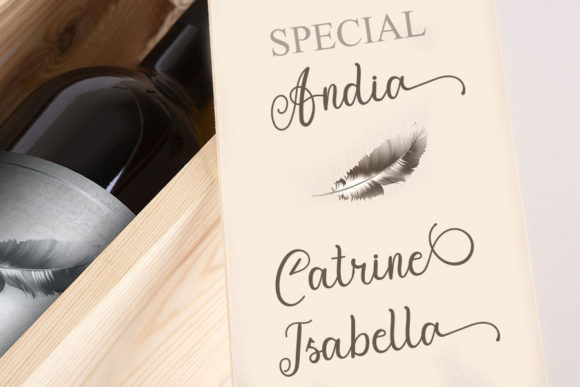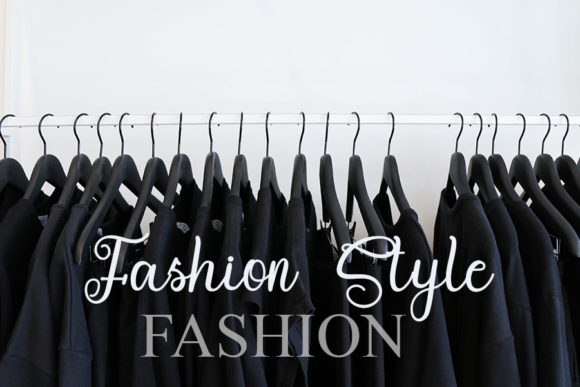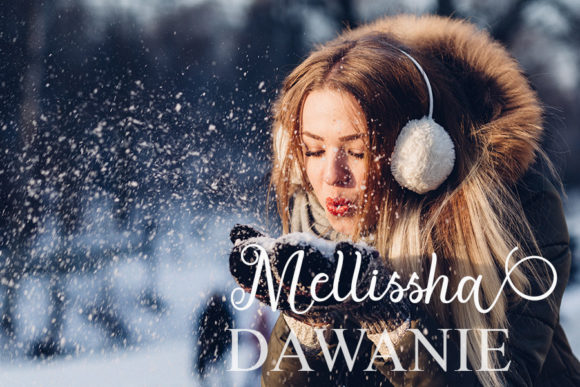
Introduction to Monthya Font
Monthya is an enchanting handwritten font.
This versatile script font has a wide spectrum of applications ranging from greeting cards to headlines and is guaranteed to add a romantic feel to your next project .